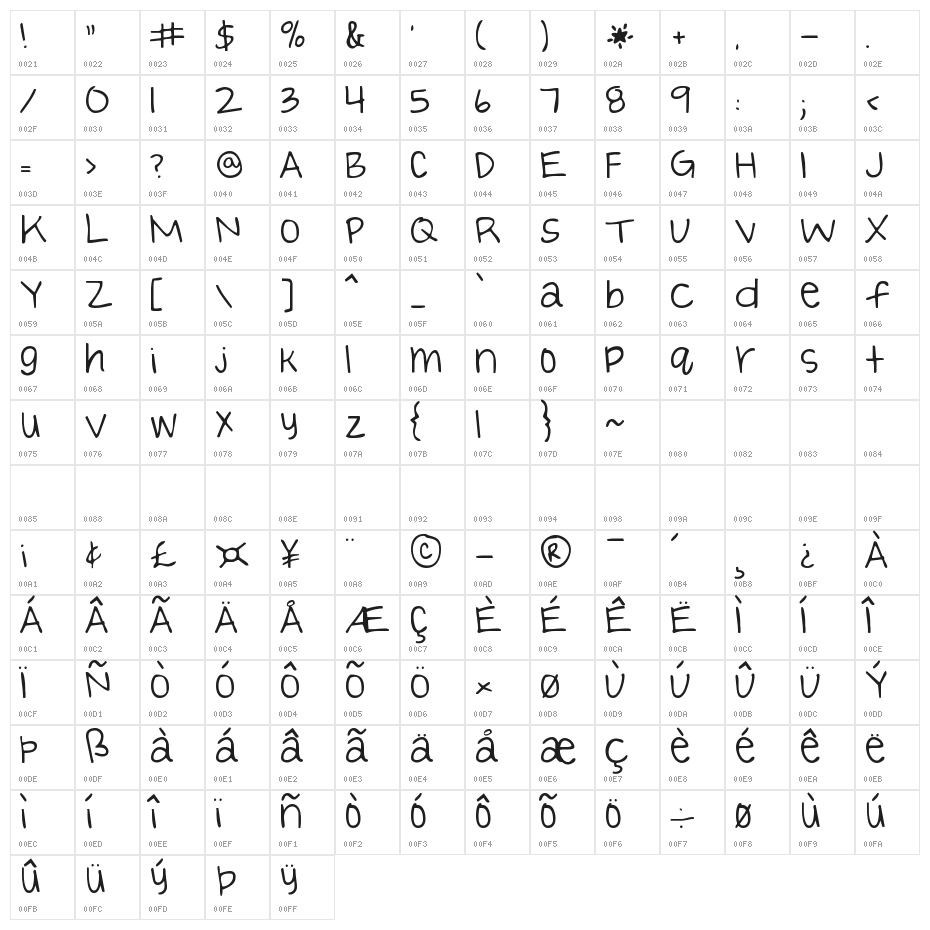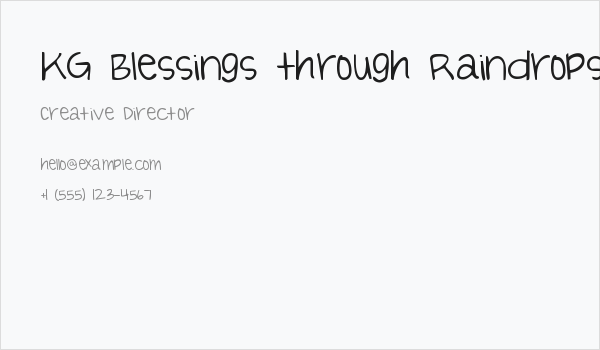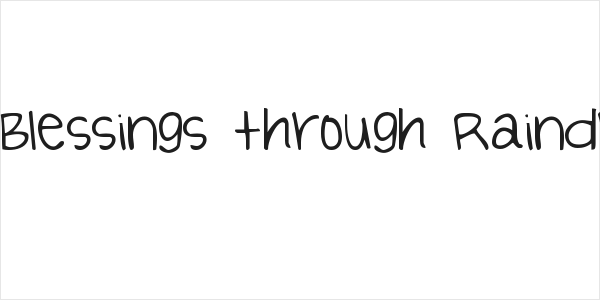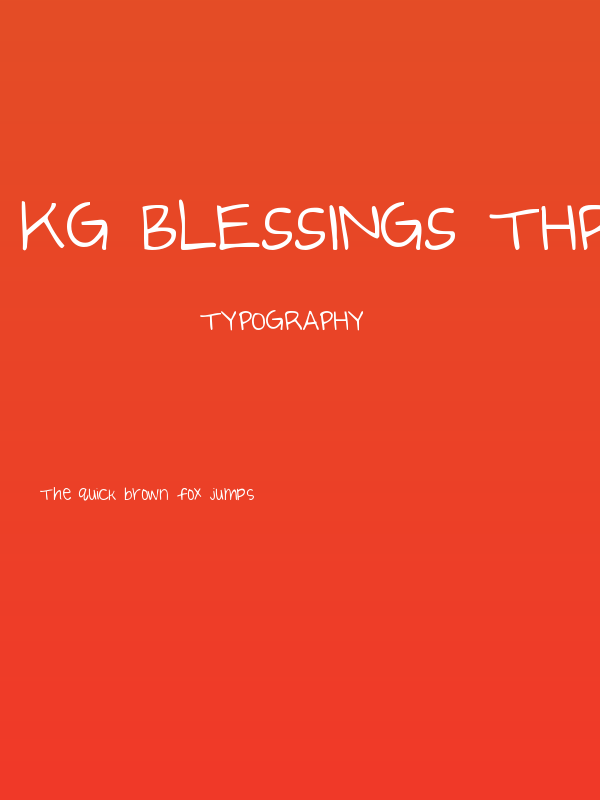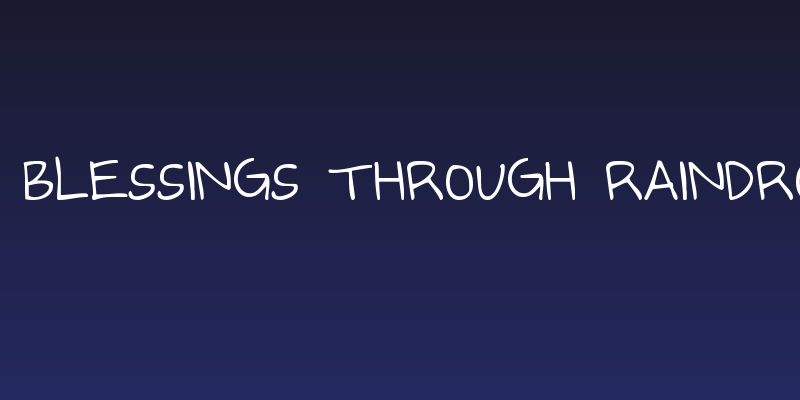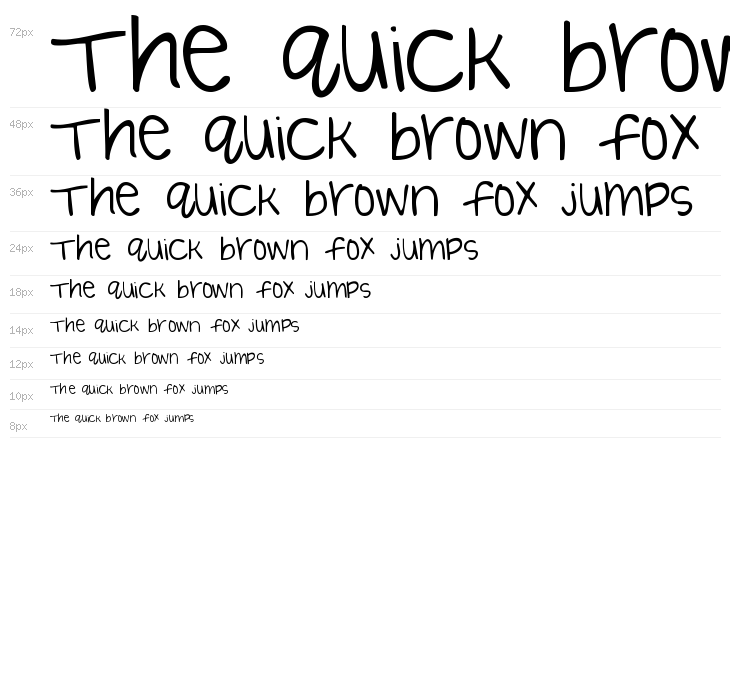
KG Blessings through Raindrops Font
KG Blessings through Raindrops Description
This playful and whimsical font features a handwritten style with a casual and friendly appearance. The letters are slightly irregular, giving it a natural and organic feel. The strokes are smooth and rounded, with a consistent thickness that maintains readability. The font includes both uppercase and lowercase letters, numbers, and a variety of special characters. Its informal style makes it suitable for projects that require a personal touch or a fun, approachable vibe.
| Proposed Projects | Ideal for greeting cards, children's books, playful branding, and casual invitations. |